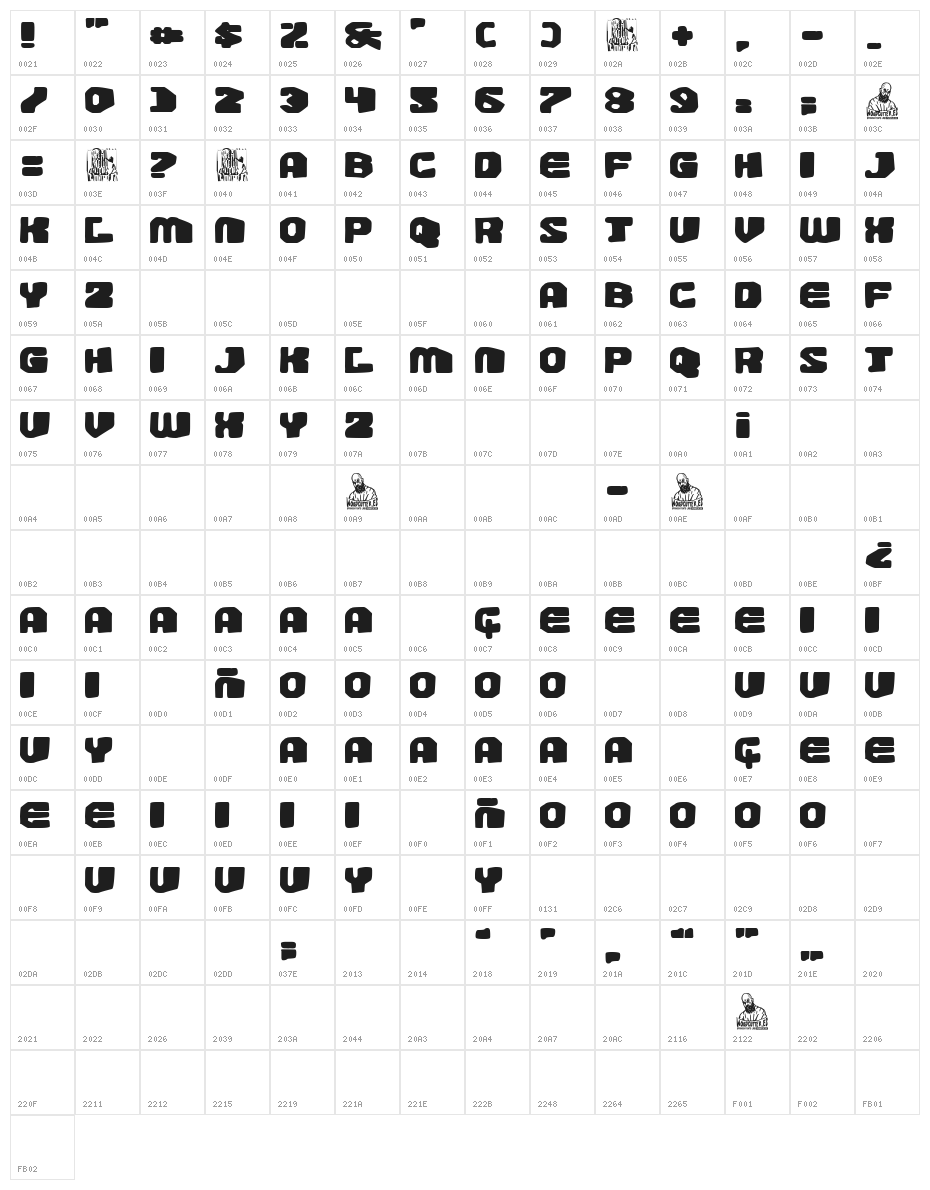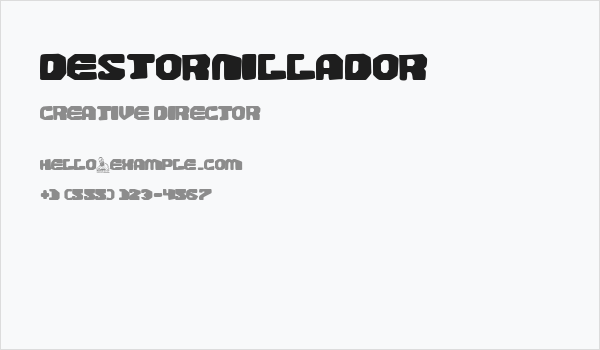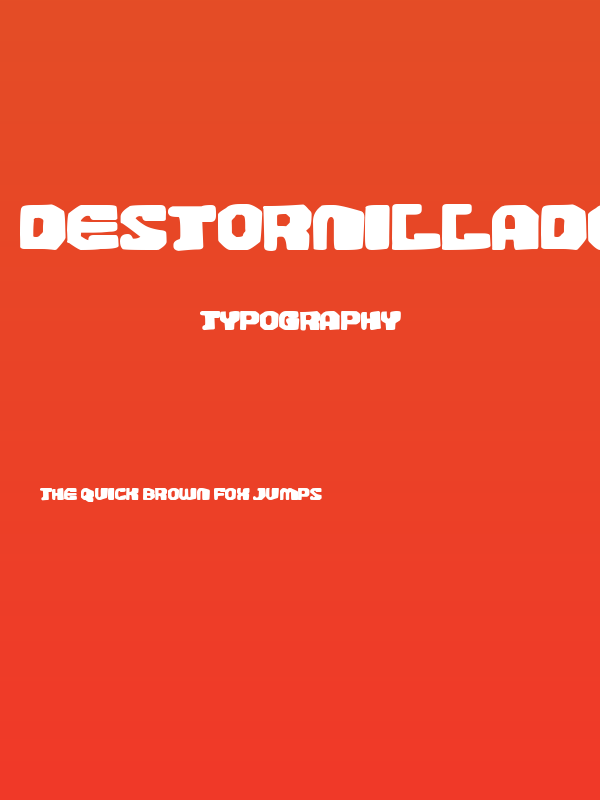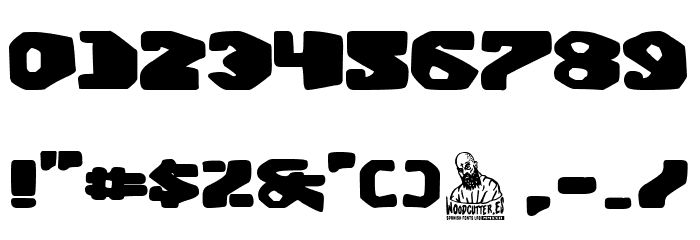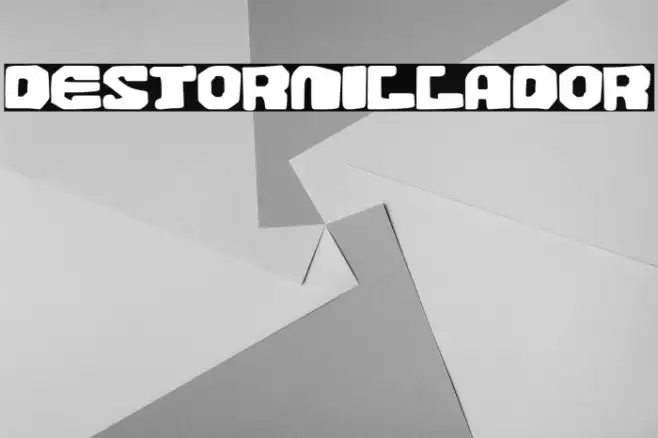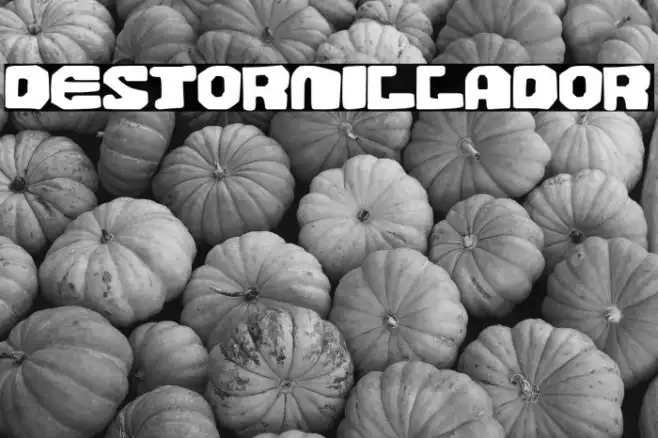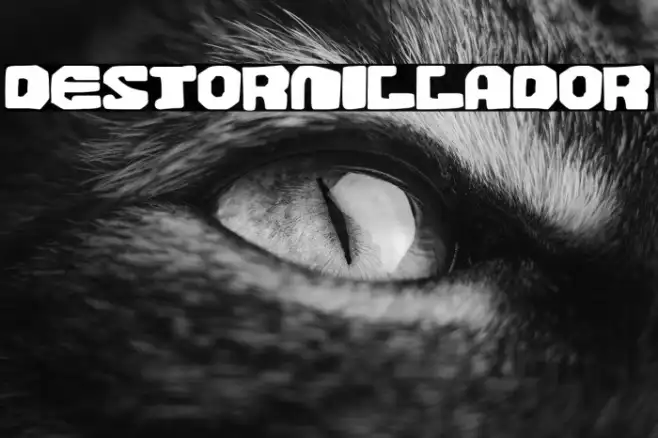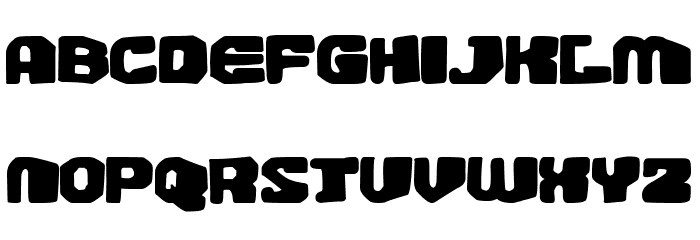
Destornillador Font
Destornillador Description
This font features bold, chunky letters with a playful and slightly retro aesthetic. The characters are heavily stylized with rounded edges and a blocky form that gives them a unique, eye-catching appearance. The uppercase and lowercase letters maintain a consistent weight, contributing to a cohesive look. The numbers and special characters follow the same design principles, ensuring uniformity across all glyphs. This font's distinctive style makes it ideal for projects that require a strong visual impact.
| Overall Style | Retro, Playful |
| Proposed Projects | Perfect for posters, logos, and branding materials that require a strong visual presence. |